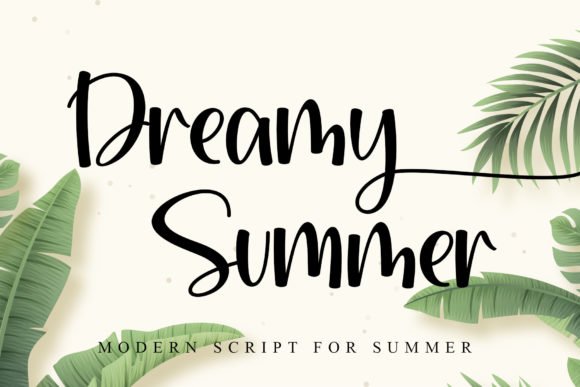
Getting Your Summer Vibes On with the Dreamy Summer Font
There’s something magical about stepping into a design project that just feels like a breath of fresh air. Maybe it’s the warm sunshine peeking through the window, or the sound of birds chirping outside, but whatever it is, it’s that perfect moment when your creativity starts to flow.
For designers looking to capture the essence of a beautiful summer day, the Dreamy Summer Font is the perfect tool. This stylish and elegant handwritten font was carefully crafted to bring a sense of whimsy and sophistication to any design. With its PUA encoding, you’ll have access to all the glyphs and swashes you need to create a truly unique look.
Dreamy Summer Font Key Features
- Font Style: Script, handwritten, and elegant, perfect for summer-themed designs and projects.
- Unique Characteristics: Includes swashes, flourishes, and connecting strokes to create a natural, handwritten feel.
Dreamy Summer Font Review
Overall, I think the Dreamy Summer Font has some great qualities that make it a solid choice for summer-themed designs. ✨ The font’s airy, handwritten feel is perfect for creating a carefree and relaxed atmosphere, which is exactly what you want for a summer vibe. ✨ The font also comes with a range of styles and weights, which gives you a lot of flexibility when it comes to using it in different contexts.
However, there are a few limitations that prevent the Dreamy Summer Font from being a top choice for every project. ⚠️ One of the main issues is that the font can be a bit too cursive for some designs, making it difficult to read at larger sizes. ⚠️ Additionally, the font’s lack of support for certain languages may limit its use in multilingual projects.
- ✨ Airy, handwritten feel perfect for summer-themed designs
- ✨ Range of styles and weights for flexibility
- ⚠️ Can be too cursive for some designs
- ⚠️ Lack of support for certain languages
Overall, I think the Dreamy Summer Font is a great choice for summer-themed designs, but it may not be the best fit for every project. With a bit of caution and planning, it can be a valuable addition to your design toolkit.
Practical Application Guide: Dreamy Summer Font
Use the Dreamy Summer Font to create a whimsical and playful look for your projects.
Pair it with bright and pastel colors to enhance its dreamy effect.
Experiment with different font sizes and styles to add depth and interest to your text.
The Dreamy Summer Font is perfect for:
Summer-themed projects, such as invitations and social media graphics.
Children’s books and educational materials.
Wedding and event invitations and decorations.
Alternative Fonts to Dreamy Summer Font
Pacifico is a beautiful, elegant script font that is perfect for creating a relaxed and sophisticated look. It features soft, flowing lines and a warm, sunny feel that is reminiscent of a dreamy summer day. Pacifico is ideal for use in branding, packaging, and advertising materials where a touch of elegance is desired.
Comparison to Dreamy Summer Font: Pacifico has a more refined and polished look compared to Dreamy Summer Font, which is more playful and whimsical. Pacifico is also more versatile and can be used in a wider range of applications.
Great Vibes is a fun, energetic font that is perfect for creating a lively and carefree atmosphere. It features bold, dynamic lines and a playful, tropical feel that is reminiscent of a dreamy summer day. Great Vibes is ideal for use in social media graphics, posters, and other materials where a fun and energetic vibe is desired.
Comparison to Dreamy Summer Font: Great Vibes has a more energetic and playful feel compared to Dreamy Summer Font, which is more relaxed and sophisticated. Great Vibes is also more suitable for use in digital applications where a bold and eye-catching font is desired.
Is the Dreamy Summer Font suitable for web design?